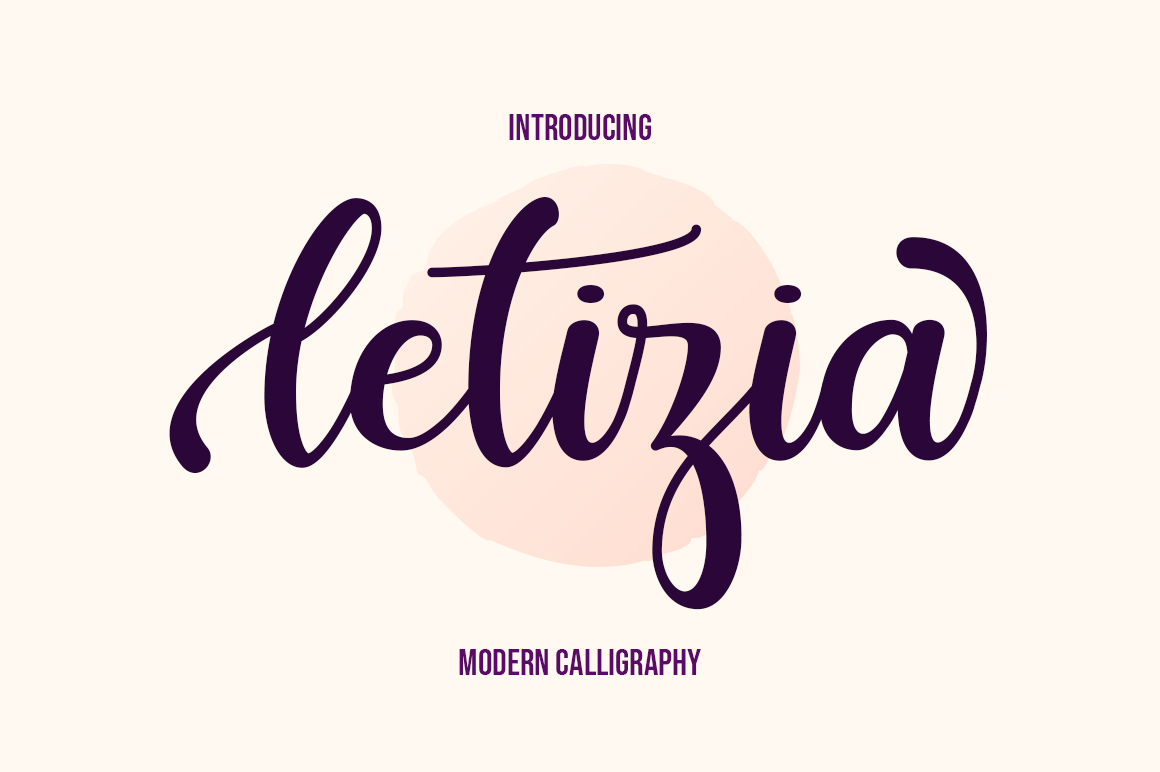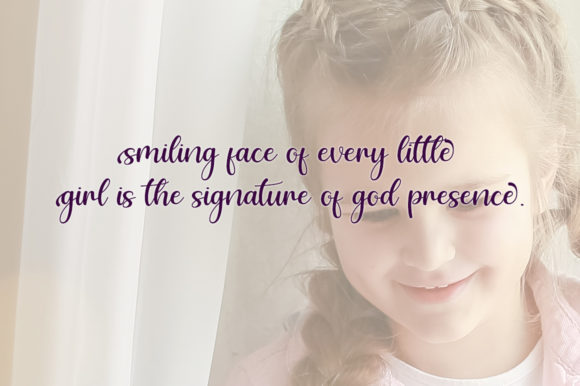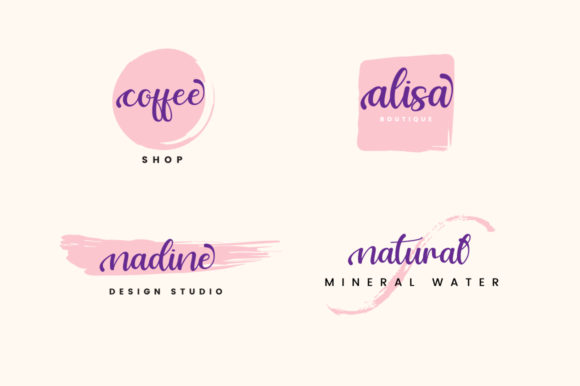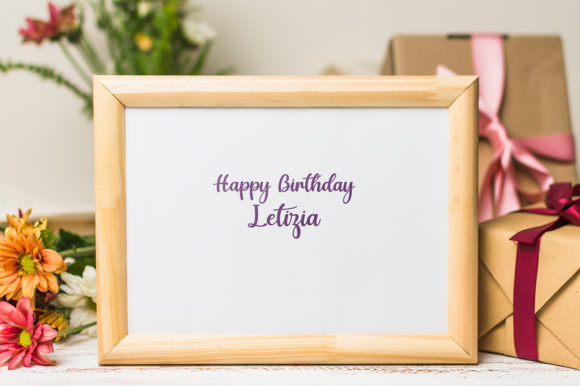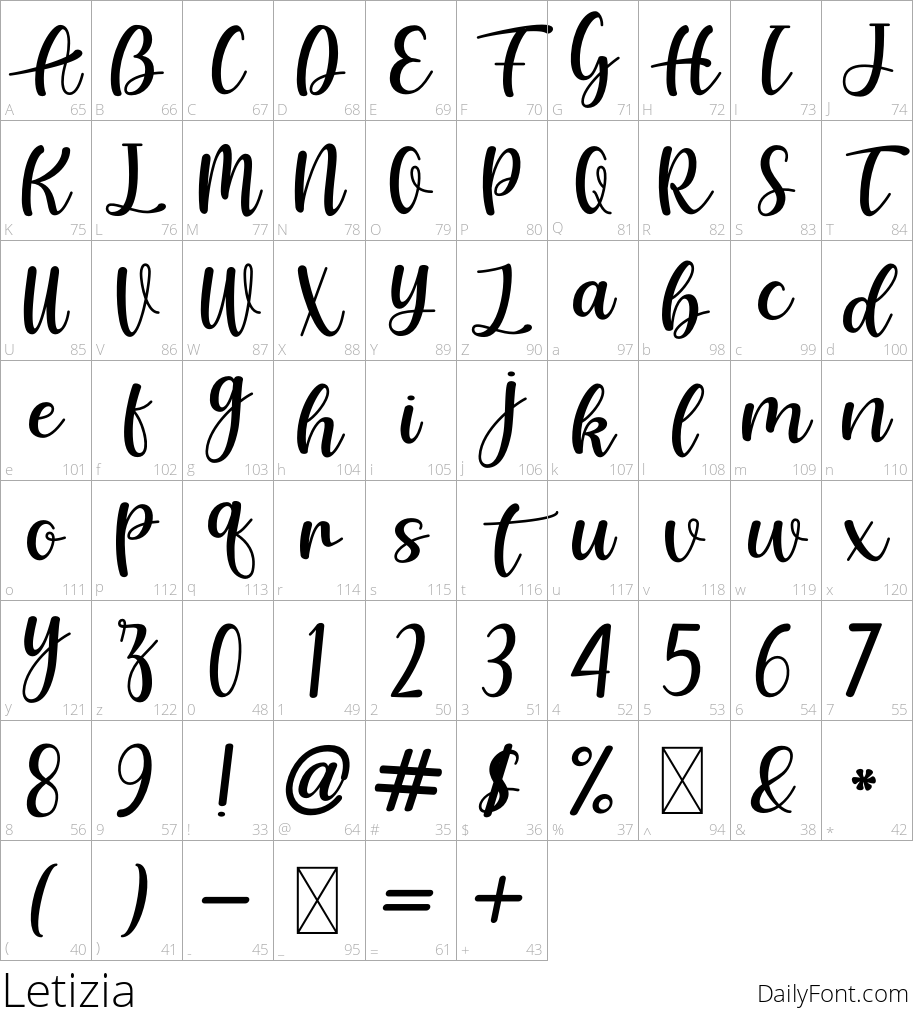
Letizia
Discover the elegance of Letizia, a stunning script font that brings romance and sophistication to any design. This modern calligraphy-inspired typeface features a flowing, handwritten style with beautiful swashes that add an extra layer of refinement.
Letizia is perfect for projects that require a touch of whimsy and charm, such as wedding invitations, thank-you cards, quote designs, and greeting cards. Its romantic flair also makes it ideal for business cards, logos, and branding materials that need to convey a sense of luxury and sophistication.
With PUA encoding, you'll have access to the full range of glyphs and swashes at your fingertips, allowing you to add an extra layer of customization and personality to your designs. Whether you're creating a wedding suite, a birthday card, or a brand identity, Letizia's beautiful script style is sure to impress.
If you're looking for a font that exudes romance, sophistication, and elegance, look no further than Letizia. Its unique blend of modern calligraphy and classic charm makes it an ideal choice for designers seeking to add a touch of glamour to their projects.